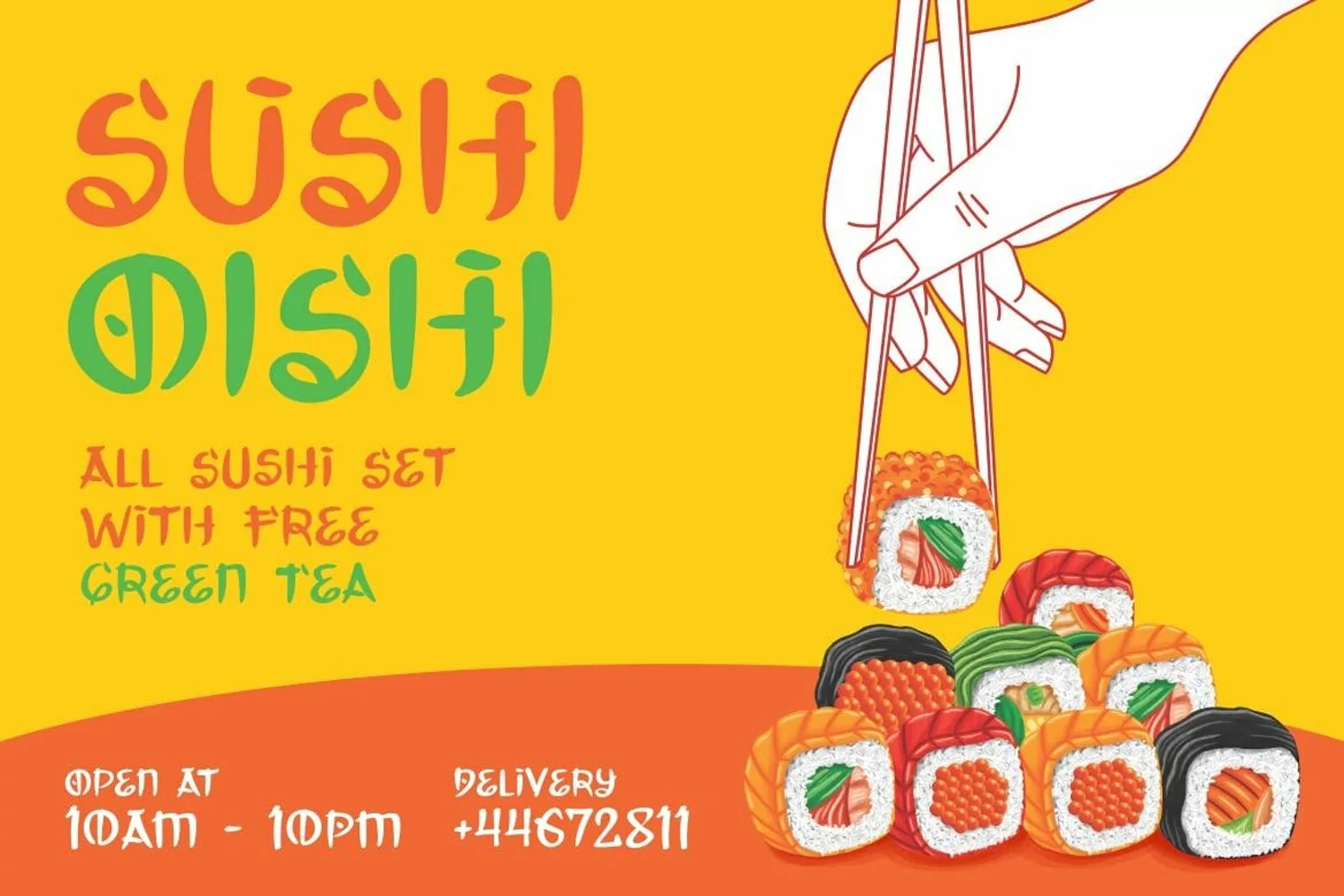
TAKOYAKI Japanese font, just like its name, TAKOYAKI bring the Japanese flavour, the smile, and fresh and cheerful attitude towards the audience.
Suit perfectly for Online Games, poster, movie title, fast food menu, magazine, youtube covers, youtube thumbnails, social media page covers and so on…